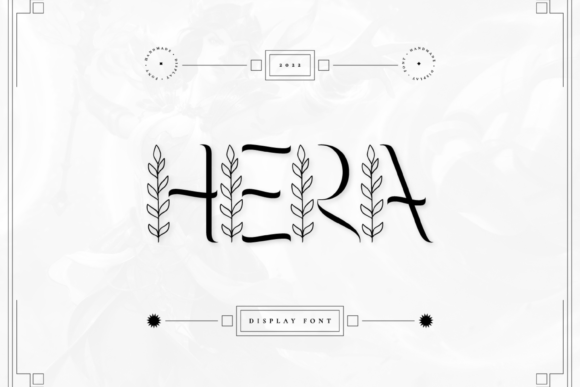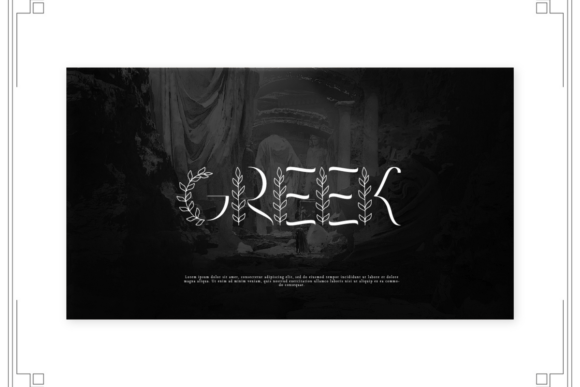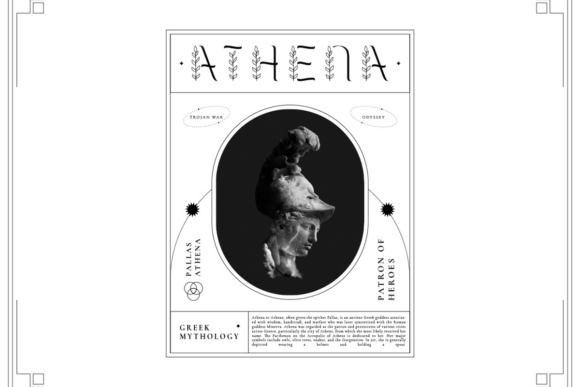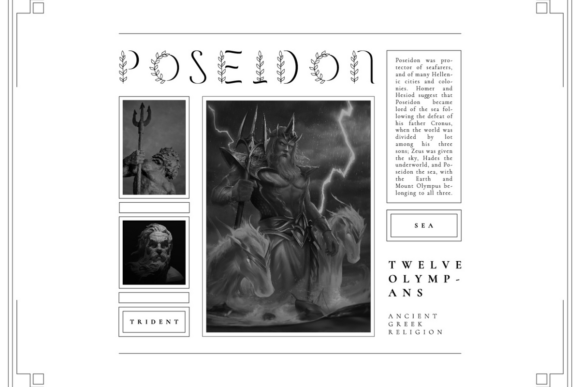
Hera Font: Elegant & Unique Decorative Font for Wedding Branding
About the Hera Font
Meet Hera Font, a stunning font that brings a touch of elegance and professionalism to any design. Hera is the fresh decorative font inspired by one of the gods in the Greek Myths, the Goddess of Marriage named Hera. Hera has an extraordinary character, the ‘diadem’ or Greek Myth Goddess’ crown is perfectly added as special creatures inside the font. Hera is bringing elegant, intimate, classic, and gorgeous feels. It is perfectly made for wedding projects, pamphlets, branding projects, logos, and other projects that need Greek or elegant vibes.
Hera’s elegant and classic feel makes it ideal for headlines, logos, short text blocks in branding materials, and wedding invitations. It excels in applications requiring a touch of refined sophistication, but its decorative nature limits its use for body text or long-form content; small sizes lose legibility. Avoid using it in user interfaces or situations demanding high readability.
Pairing Hera with a clean sans-serif like Lato or a neutral serif such as Playfair Display creates a balanced and harmonious aesthetic. For a more modern feel, consider pairing it with a geometric sans-serif like Montserrat. These pairings allow Hera’s decorative elements to stand out while maintaining overall visual clarity.
The font projects a sophisticated and refined personality, best suited for brands focused on luxury, tradition, or high-end products. Its inherent elegance lends itself to projects that require a sense of timeless beauty and classic appeal.